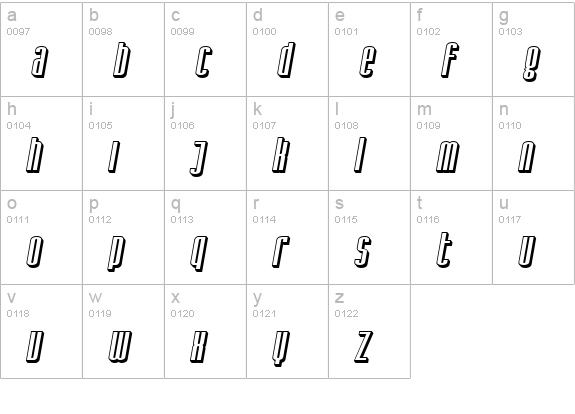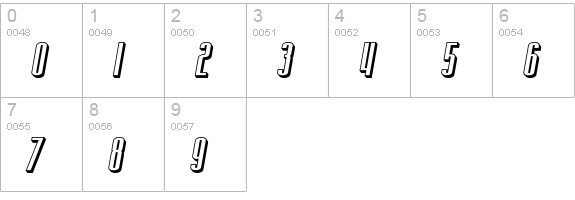
SF Iron Gothic Shaded Oblique Font Details
SF Iron Gothic Shaded Oblique is a distinctive, italic variant in the SF typeface family \xE2\x80\x94 well suited to design and typography projects.
SF Iron Gothic Shaded Oblique is a bold and captivating font that perfectly balances the elements of gothic and industrial design. Its strong and edgy appearance makes it an ideal choice for projects that require a touch of raw and powerful aesthetics. The font features a unique shading effect that adds depth and dimension to each character, creating a visually striking and dynamic look. The oblique angle further enhances the font's personality, adding a sense of movement and energy. SF Iron Gothic Shaded Oblique is not only visually appealing, but also highly versatile. It can be used in a variety of design projects, including logos, headlines, posters, and more. Its bold and solid lines ensure clear and legible text, even at smaller sizes. One of the best things about SF Iron Gothic Shaded Oblique is that it is available for free download at FontsMarket.com. Designers and creatives can easily access this captivating font without any cost, making it an excellent addition to their font library. Whether you are working on a graphic design project, creating a striking poster, or designing a unique logo, SF Iron Gothic Shaded Oblique will undoubtedly make a bold statement. Its combination of gothic and industrial aesthetics, along with the freely available download, makes it a must-have font for any design enthusiast.